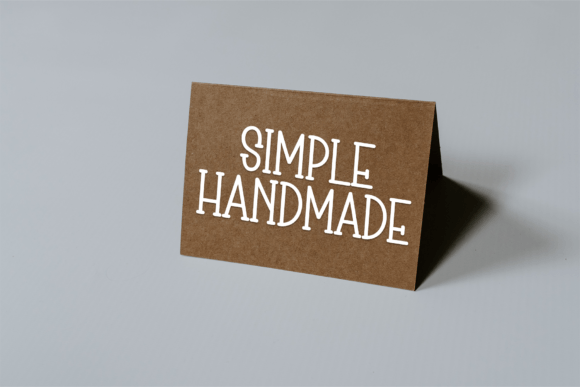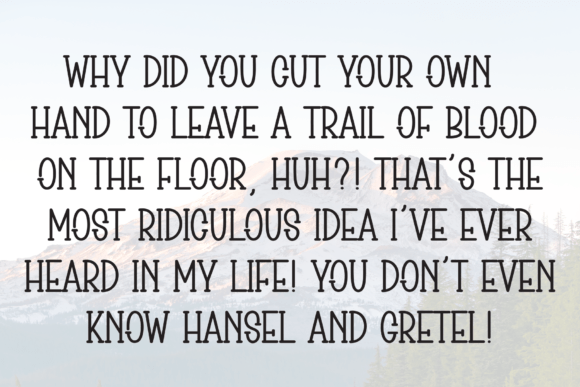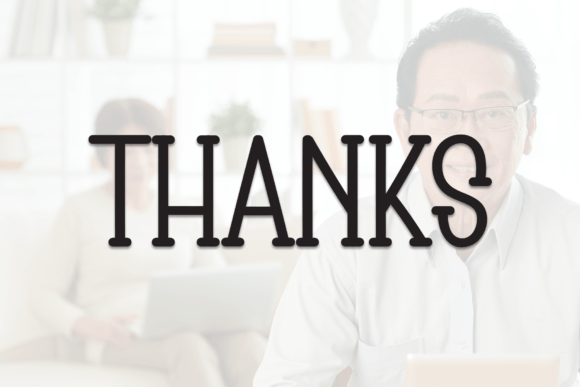
Introduction to Smart Uncle Font Font
Fonts play a crucial role in design, and the Smart Uncle Font font is a typeface that brings both character and versatility to any project. Whether you’re working on a branding project, a website, or a print design, the Smart Uncle Font font offers a unique style that can elevate your work.
Introducing a charming, personable handwritten display font that exudes sweetness and friendliness.
This delightful font creatively captures the essence of fun, making it an exemplary choice for crafting wedding invitations, cards, or any design project that is in need of a light-hearted and jovial touch, ensuring your designs not only stand out, but radiate a sense of joy and playfulness .
Key Features of Smart Uncle Font Font
Why Choose Smart Uncle Font Font?
The Smart Uncle Font font is more than just a typeface – it’s a design tool that helps you communicate your message with style and clarity. Its unique character set and versatile design make it suitable for a wide range of applications, from elegant invitations to bold headlines.
With its carefully crafted letterforms and balanced proportions, the Smart Uncle Font font ensures readability and visual appeal across all mediums.
What makes Smart Uncle Font font special?
The Smart Uncle Font font stands out with its unique design, exceptional readability, and versatility across various design applications.